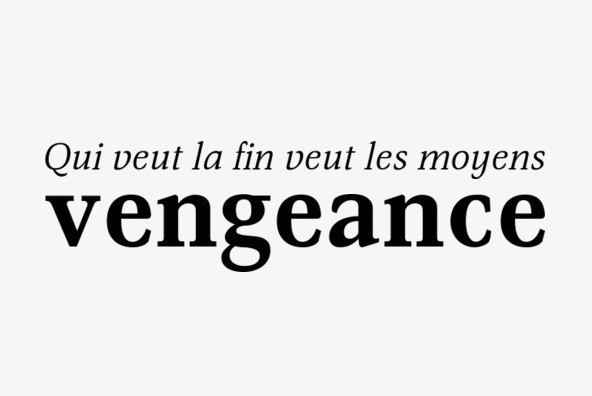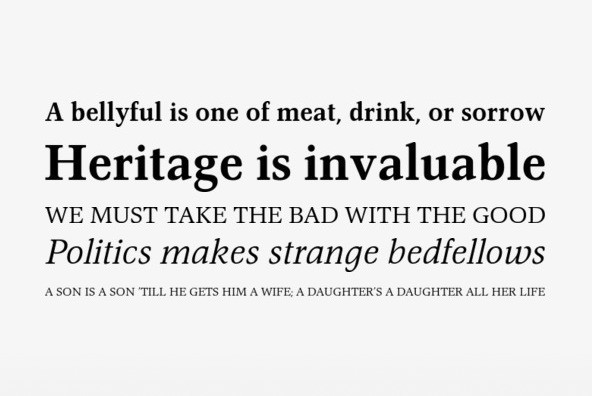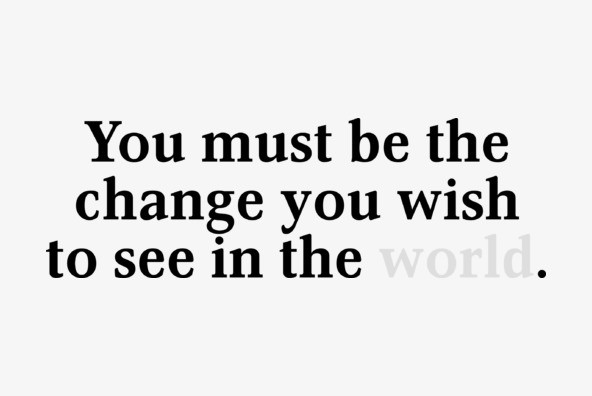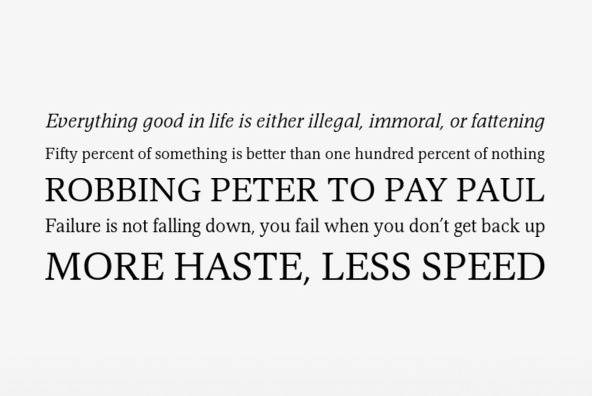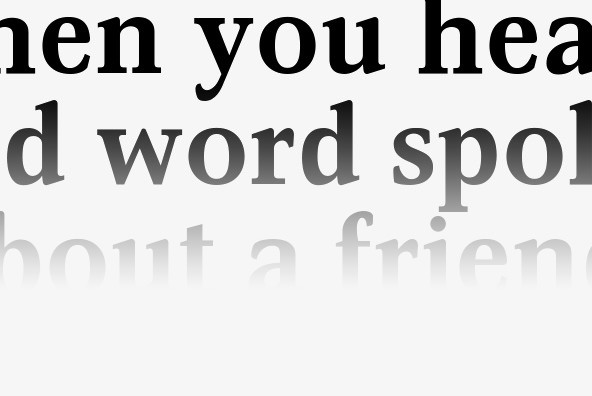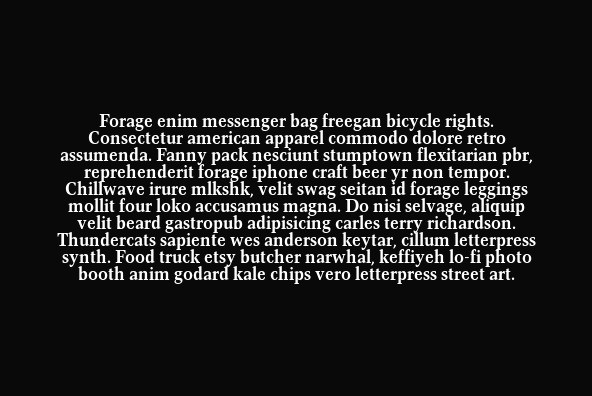
Diamant Pro
Foundry: RMU Typedesign
A legible, most versatile serif font family with an Extended Latin and Cyrillic letter set which makes this font family a real workhorse.